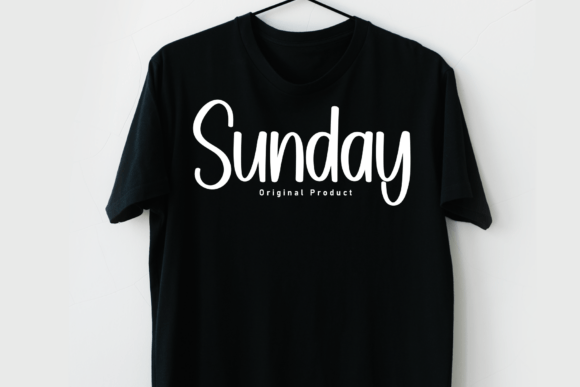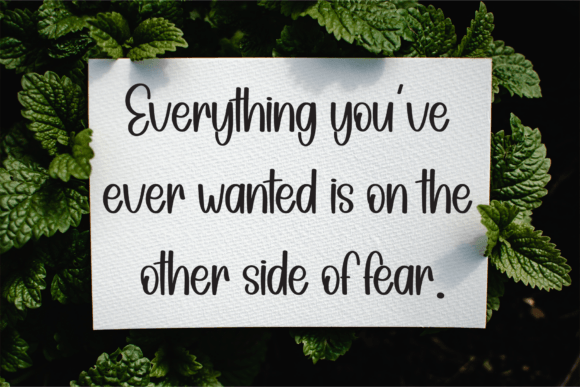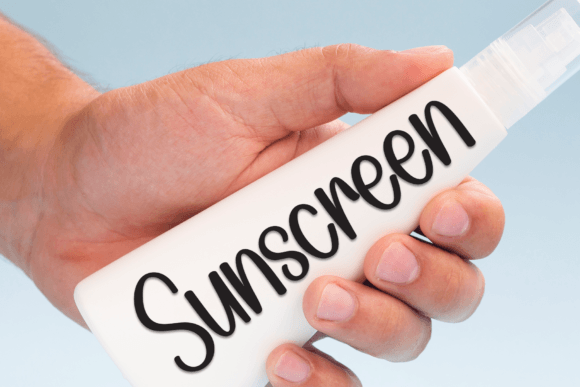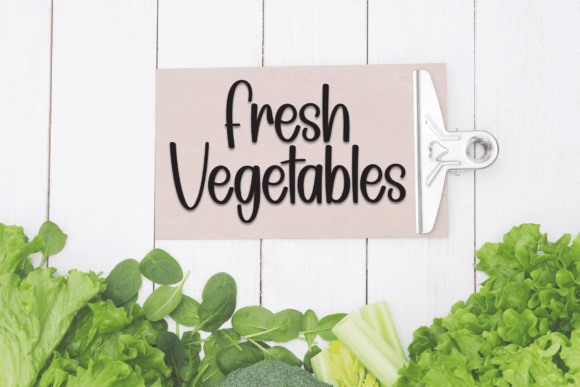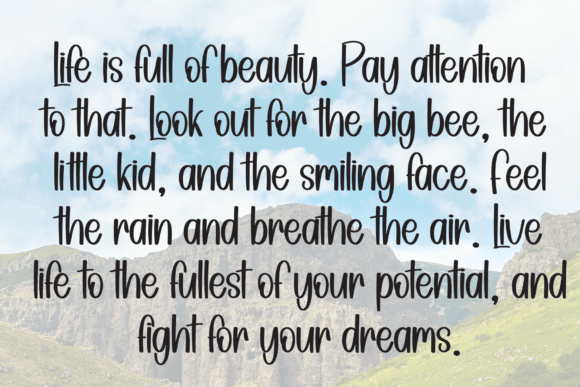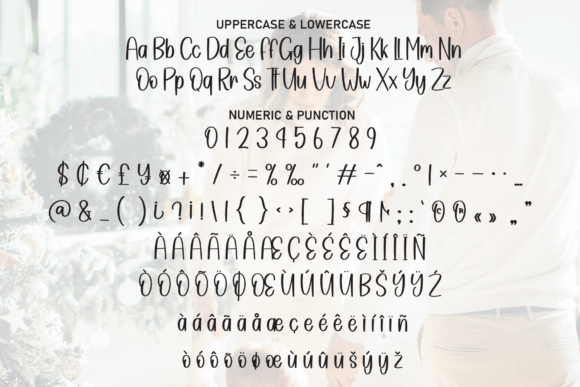
The Magic of Dancing Christmas Font: A Delightful Addition to Your Design Arsenal
Ah, the quest for the perfect font! It’s a design dilemma we’ve all faced at some point. I recall working on a wedding invitation project, determined to create something that would make the happy couple’s special day even more unforgettable. As I scrolled through font after font, none seemed to capture the whimsical, warm, and friendly vibe I was going for – until I stumbled upon the Dancing Christmas Font. ✨
A Personal Review: What I Love and a Few Quirks
Let’s dive right in! Here’s what makes Dancing Christmas Font a standout in my book:
- ✅ Adorable and amusing aesthetic that’s perfect for wedding invitations, cards, and more
- ✨ Warmth and friendliness that instantly elevates your design
- 💕 Highly versatile and suitable for a wide range of creative projects
- 🎉 Easy to read and understand, even in smaller font sizes
Now, no font is perfect, and Dancing Christmas Font does come with a few minor quirks:
- ⚠️ Limited use of uppercase letters might require some creative workaround
- 🤔 Not ideal for body text or lengthy content due to its display nature
The Story Behind Dancing Christmas Font
While the actual origins of Dancing Christmas Font might be shrouded in mystery, it’s easy to imagine a designer inspired by the magic of the holiday season, crafting a font that embodies warmth, joy, and playfulness. Perhaps they envisioned a typography style that would make wedding invitations, Christmas cards, and festive designs a little more special. Whatever the backstory, Dancing Christmas Font undoubtedly brings a spark of creativity to any project.
| Font Name | Dancing Christmas Font |
| Is Dancing Christmas Font suitable for body text? | No, it’s primarily designed as a display font for titles, headings, and short text. |
| Does Dancing Christmas Font support OpenType features? | Yes, it offers a range of OpenType features, including stylistic alternates and glyphs. |